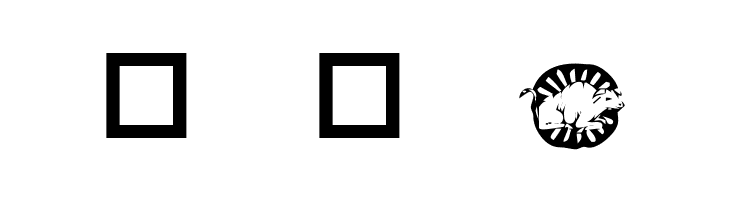
A playful, character-based decorative font inspired by anime and manga.
A bold, angular font inspired by ancient Etruscan script with a hand-carved appearance.
A decorative font featuring intricate Aztec-inspired glyphs and symbols.
Ornamental medieval tile-inspired decorative font.
A decorative font with characters integrated into barcode patterns, ideal for modern and tech-inspired designs.
A decorative font inspired by ancient symbols and runes, featuring bold, hand-drawn characters.
An Art Nouveau-inspired decorative font with intricate, ornamental designs.
A bold, geometric font inspired by ancient runic alphabets.
Ancient Egyptian-inspired decorative glyph set.
A decorative font inspired by the Chinese Zodiac, featuring intricate animal designs within circular forms.
A decorative font with pictographic symbols inspired by Aboriginal art.
A decorative font featuring Aboriginal-inspired pictograms.
A decorative set of tribal-inspired figures and symbols with intricate designs.